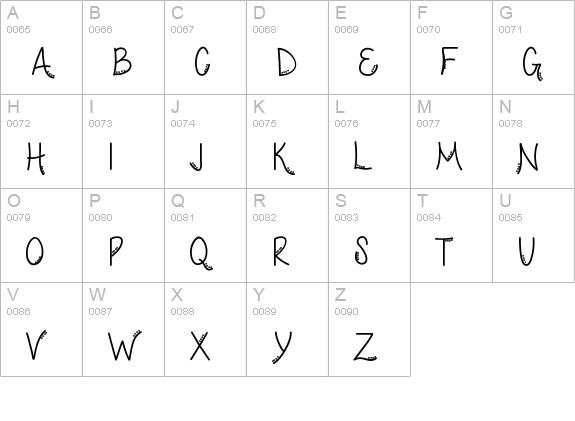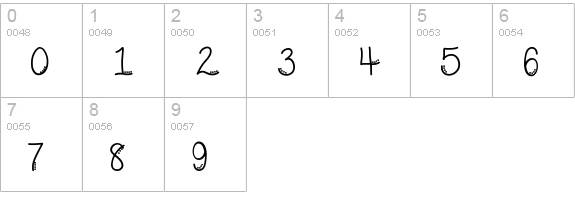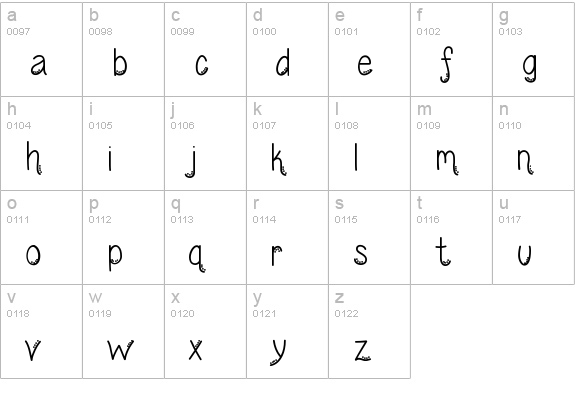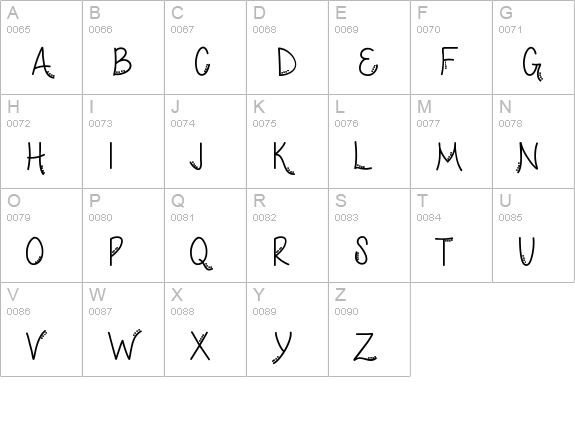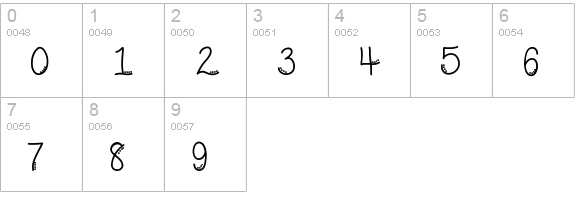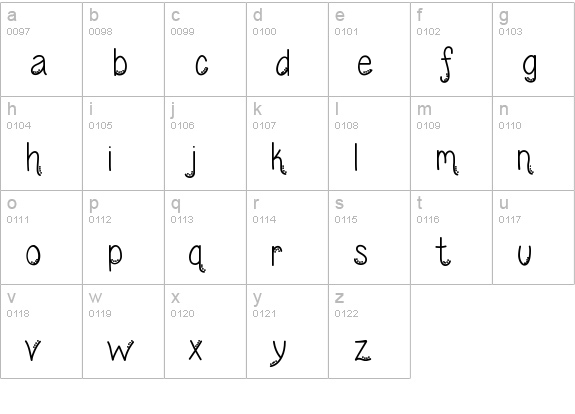
Wednesday Font Details
Introducing Wednesday, a stunning font that effortlessly combines elegance and modernity. With its sleek and sophisticated design, Wednesday is perfect for a wide range of design projects, from branding and logo design to editorial layouts and social media graphics. Its clean lines and refined curves exude a sense of professionalism and creativity, making it the ideal choice for both professional designers and enthusiasts alike. But what makes Wednesday truly remarkable is the fact that it is not only visually appealing, but also freely available to download at FontsMarket.com. Yes, you read that right! This extraordinary font can be yours without any cost or restrictions, allowing you to unleash your creativity without breaking the bank. With its extensive character set, Wednesday offers a broad range of stylistic options, ensuring that your designs stand out from the crowd. Whether you're looking for a bold and impactful headline or a delicate and elegant script, this font has got you covered. Its versatility knows no bounds, making it the perfect companion for any project or concept you may have in mind. So why wait? Head over to FontsMarket.com and get your hands on Wednesday font today. Experience the freedom of creativity, without having to spend a dime. Download, install, and start creating captivating designs that will leave a lasting impression. Don't miss out on this incredible opportunity to elevate your design game with Wednesday font.